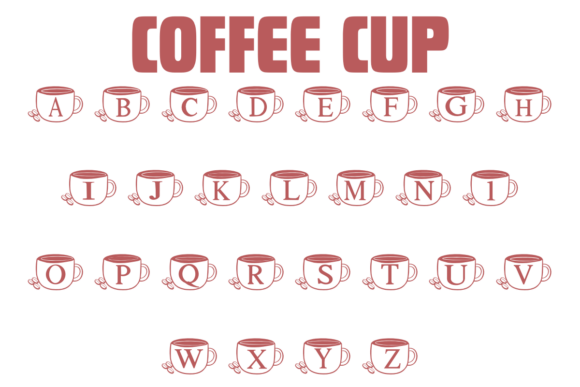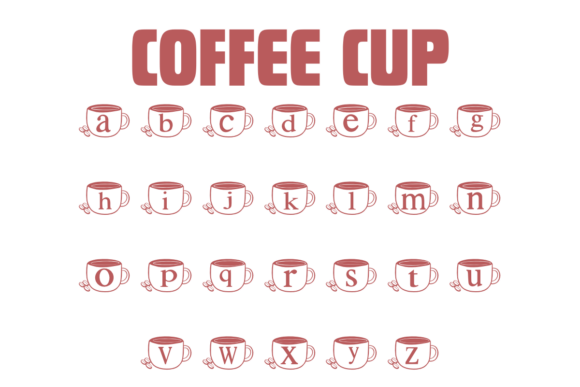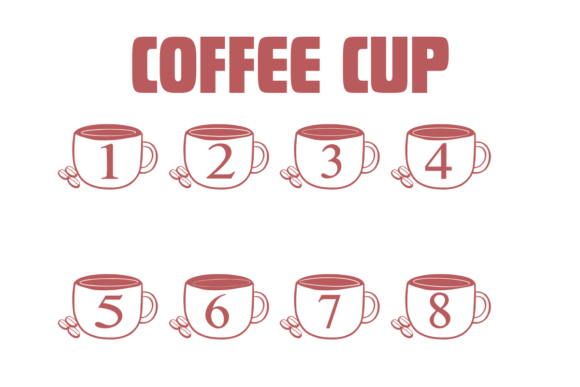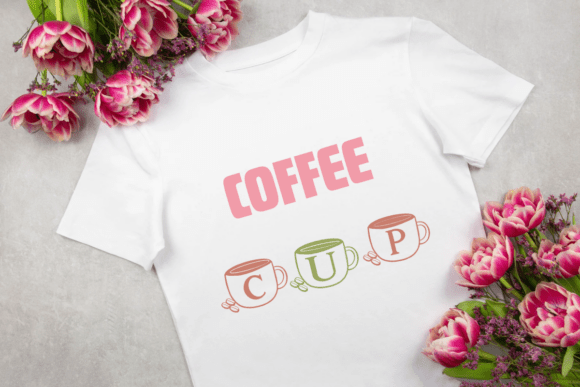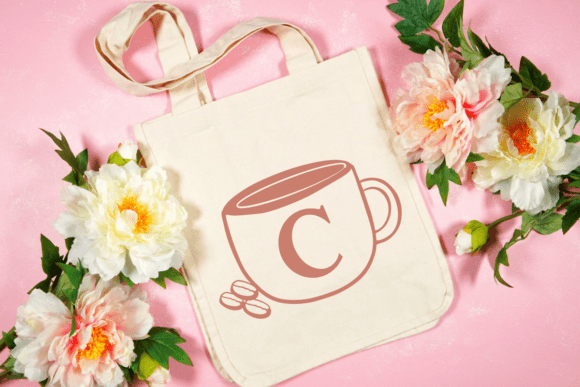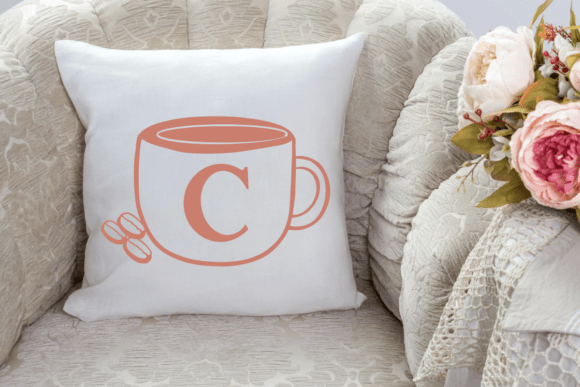
The Ultimate Guide to Coffee Cup Font: A Decorative Delight for Creatives
I’ll never forget the time I was working on a project for a client who wanted a custom mug design. I had spent hours brainstorming ideas, but something was missing – the perfect font. That’s when I stumbled upon Coffee Cup Font, and it instantly elevated my design to the next level. If you’re a designer, crafter, or creative hobbyist looking for a unique and decorative font, you’re in the right place!
Coffee Cup Font: An Honest Review
Coffee Cup Font has quickly become one of my go-to fonts for various design projects. Here’s what I love about it:
- ✨ Unique and decorative design that’s perfect for making a statement
- ✅ Highly versatile and can be used for a wide range of projects, from notes and diaries to banners and social media posts
- 💫 Great for creating eye-catching graphics, such as greeting cards, mugs, and shirts
- 👍 Easy to read and understand, even in smaller sizes
While Coffee Cup Font is an amazing decorative font, it’s not without its quirks. Here are a few limitations to keep in mind:
- 🤔 May not be the best choice for body text or long paragraphs, as it’s designed to be attention-grabbing
- ⚠️ Some characters may not be suitable for use in formal or professional designs
- Experiment with OpenType features, such as glyphs and stylistic alternates, to add more personality to your design
The Story Behind Coffee Cup Font
Coffee Cup Font was designed by a talented typographer who wanted to create a font that captured the warmth and coziness of a favorite coffee mug. Inspired by the hand-drawn letters on her own coffee cup, she created a font that’s both decorative and inviting. Today, Coffee Cup Font is a popular choice among designers and crafters who want to add a personal touch to their projects.
| Font Name | Coffee Cup Font |
| Author | Suphitchaya |
| What type of projects is Coffee Cup Font best suited for? | Coffee Cup Font is a versatile font that can be used for a wide range of projects, including notes, diaries, greeting cards, banners, social media posts, and more! |
| Is Coffee Cup Font easy to read? | Yes, Coffee Cup Font is designed to be easy to read and understand, even in smaller sizes. |
| Does Coffee Cup Font support OpenType features? | Yes, Coffee Cup Font supports OpenType features, including glyphs and stylistic alternates, which can add more personality to your design. |